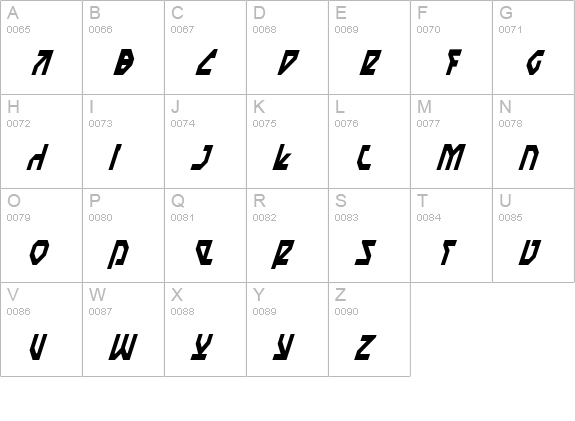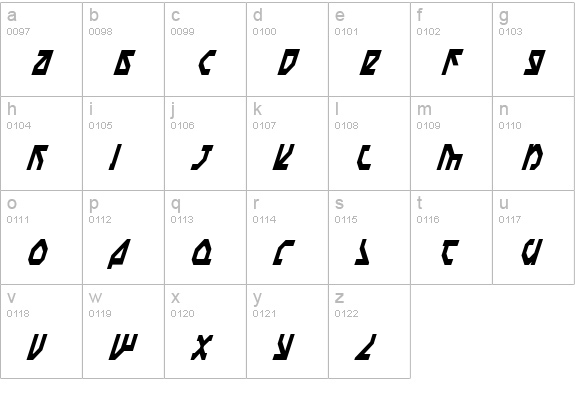
Nostromo Condensed Italic is a distinctive, condensed-width, italic variant in the Nostromo typeface family \xE2\x80\x94 well suited to design and typography projects.
Nostromo Condensed Italic font is a sleek and sophisticated typeface that exudes elegance and modernity. Its slender and italicized design adds a touch of flair to any project, making it perfect for use in branding, editorial design, and more. The condensed form of the font allows for efficient use of space while maintaining readability and style. Best of all, Nostromo Condensed Italic font is available for free download at FontsMarket.com. This means you can easily access this stunning typeface without any cost, making it a valuable addition to your font collection. Whether you're working on a professional design project or a personal creative endeavor, Nostromo Condensed Italic font is sure to elevate your work with its unique charm and versatility.